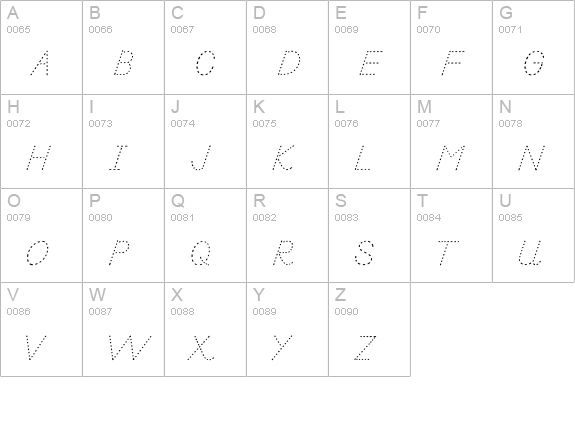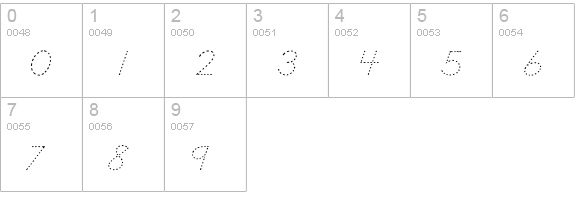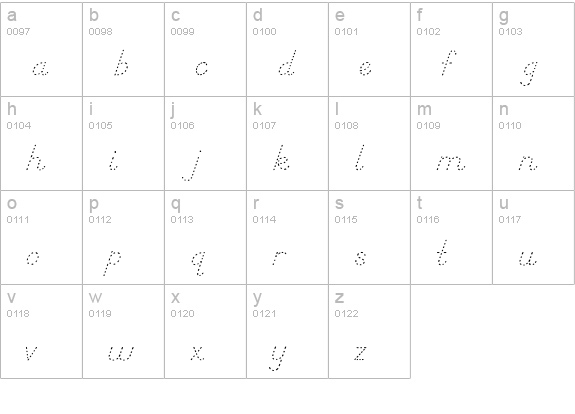
AbcDNManusDotted Font Details
The AbcDNManusDotted font is a charming and playful typeface that adds a touch of whimsy to any design. Its dotted style gives it a unique and fun look, perfect for children's books, greeting cards, and other creative projects. This font is free to download at FontsMarket.com, making it easily accessible for anyone looking to add a bit of personality to their designs. With its clear and easy-to-read lettering, AbcDNManusDotted is a versatile choice for a variety of applications. Let your creativity shine with this delightful and freely available font!